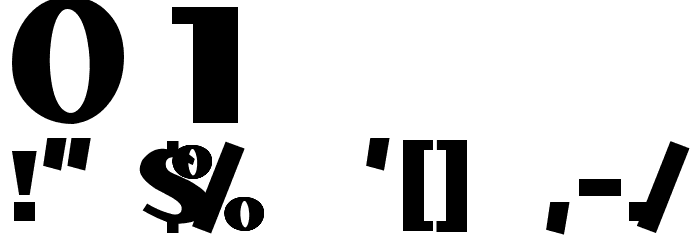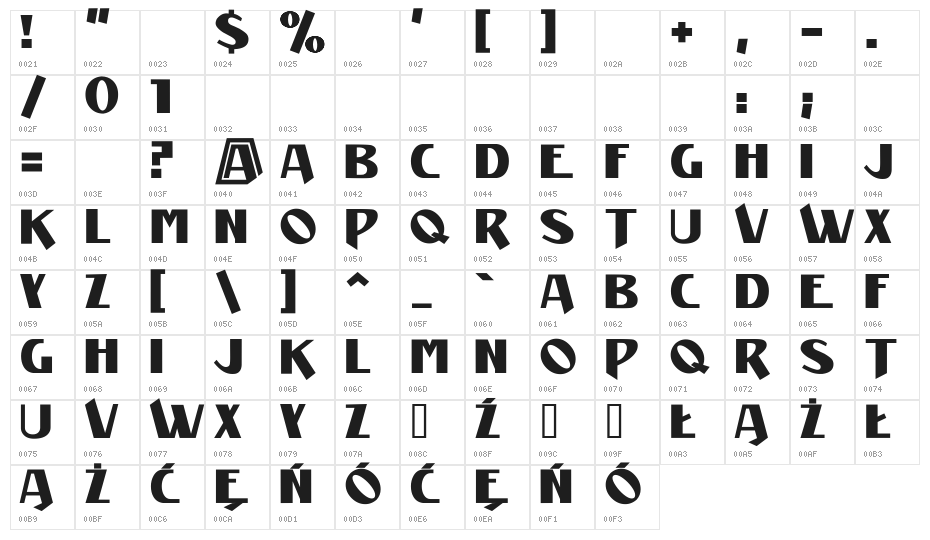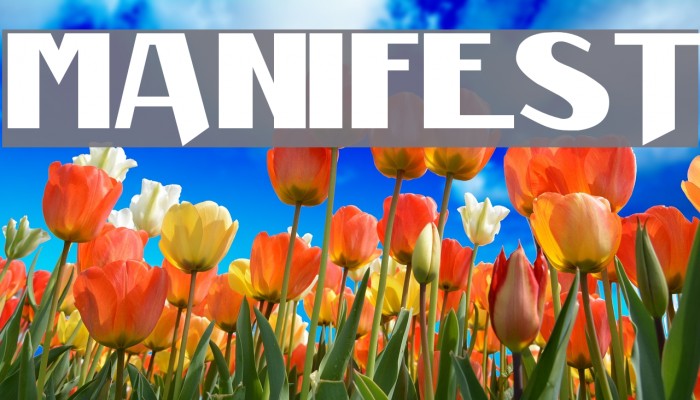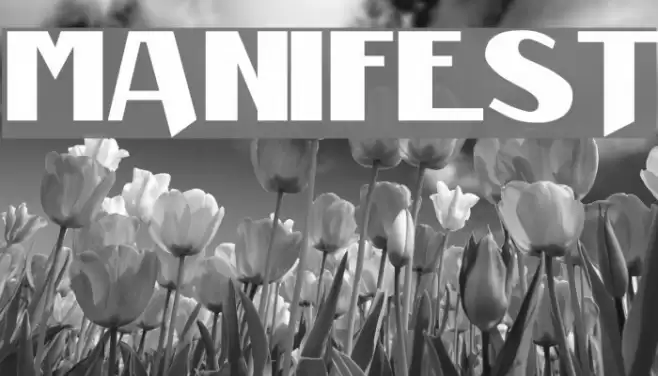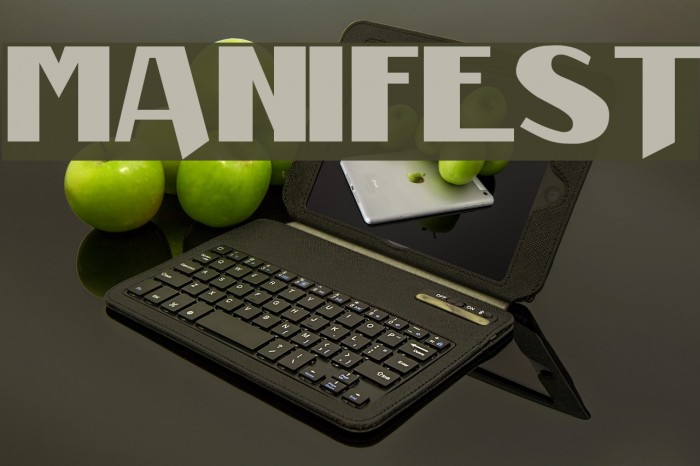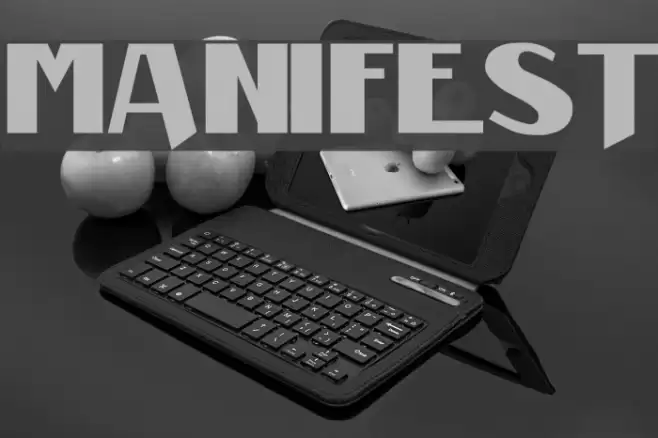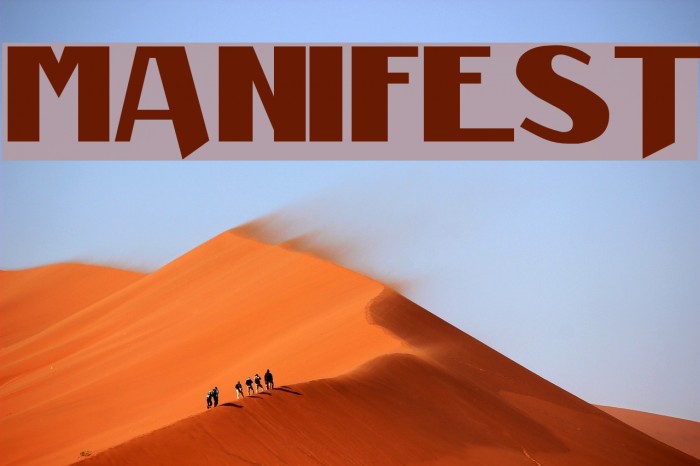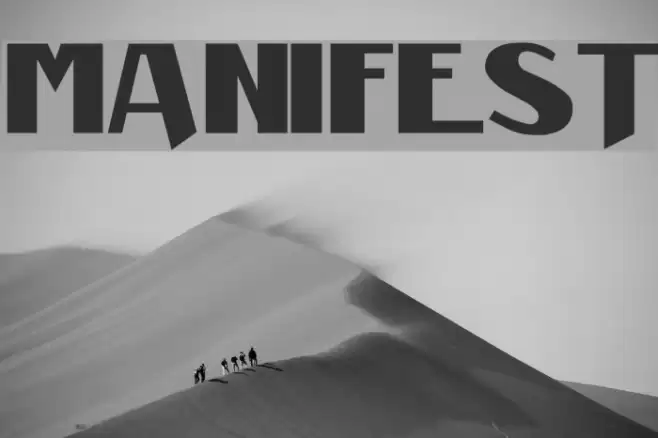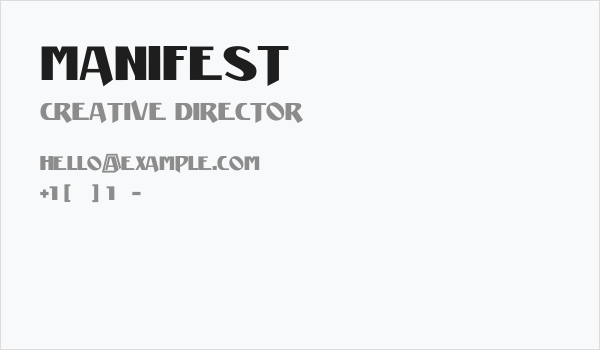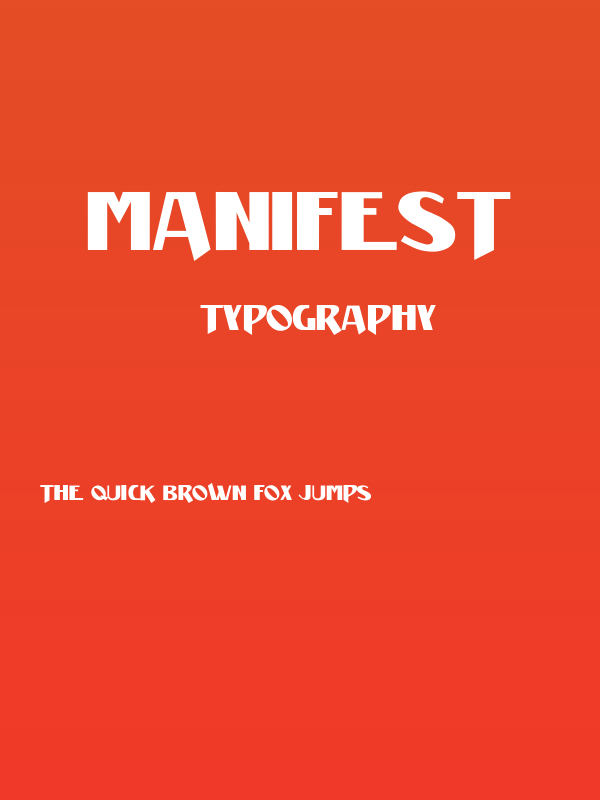
Manifest Font
Manifest Description
This font features a bold and striking design with sharp, angular edges and a geometric style. The uppercase letters are particularly distinctive, with unique cuts and angles that give them a dynamic and energetic appearance. The lowercase letters maintain this boldness, ensuring consistency throughout the typeface. Numbers and special characters are equally bold, with a playful yet assertive presence. The overall design is modern and eye-catching, making it suitable for projects that require a strong visual impact.
| Proposed Projects | Ideal for branding, posters, headlines, and any design needing a bold statement. |